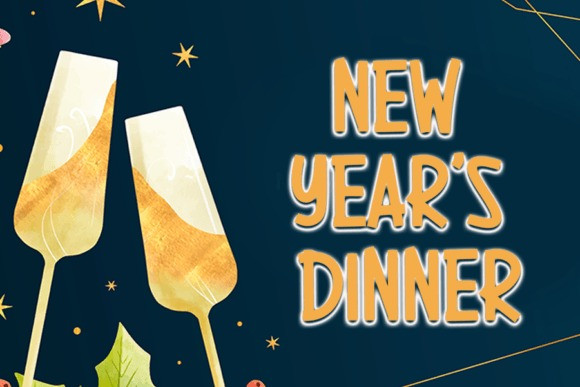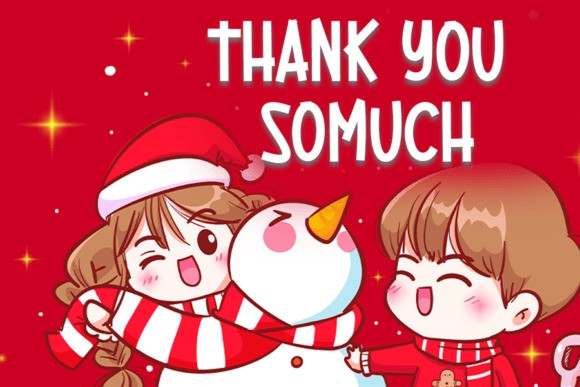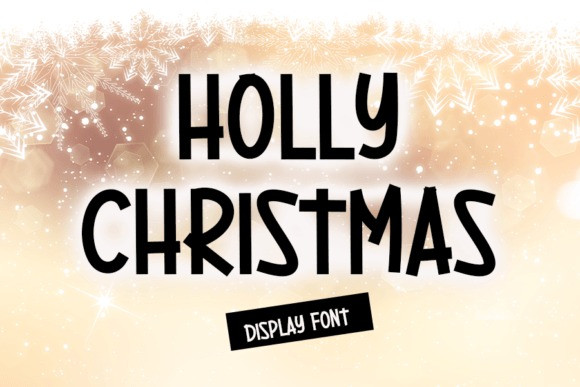
Holly Christmas Font
Holly Christmas Font is a fun and cute handwritten display font. Masterfully designed to become a true favorite, this font has the potential to bring each of your creative ideas to the highest level!